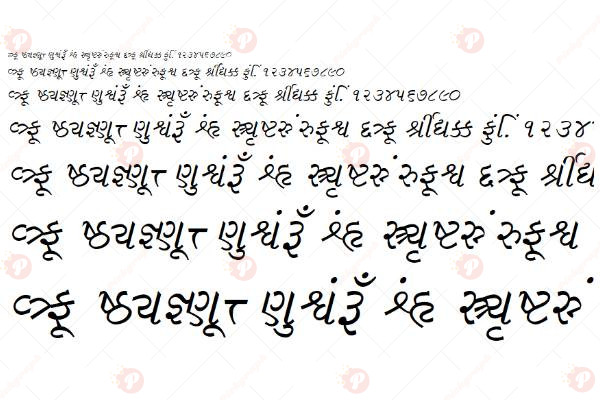
The Krishna Italic Font is a devotional and graceful typeface with slanted letterforms that add elegance and expression to your designs. Inspired by Indian tradition and spirituality, this italic style is perfect for religious posters, festival invitations, cultural banners, devotional books, packaging, and spiritual branding projects.
With its flowing italic curves and heritage-inspired design, the Krishna Italic Font brings a divine and stylish touch to both digital and print media.
Style: Italic / Devotional / Traditional Typeface
Perfect for: Festival Posters, Religious Invitations, Banners, Book Covers, Packaging & Cultural Branding
Add elegance and spiritual depth to your projects with the Krishna Italic Font.
| Optimum Size | Large (Display / Poster) |